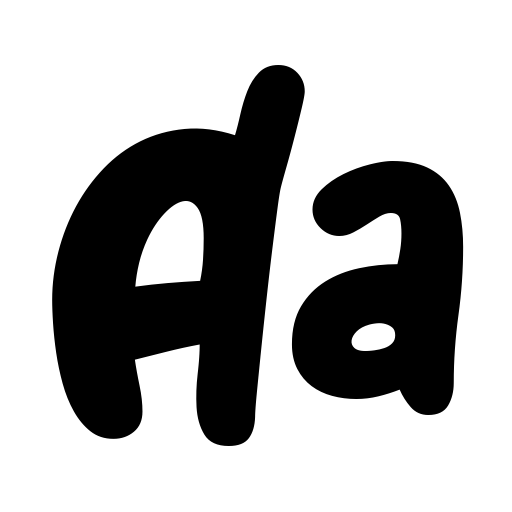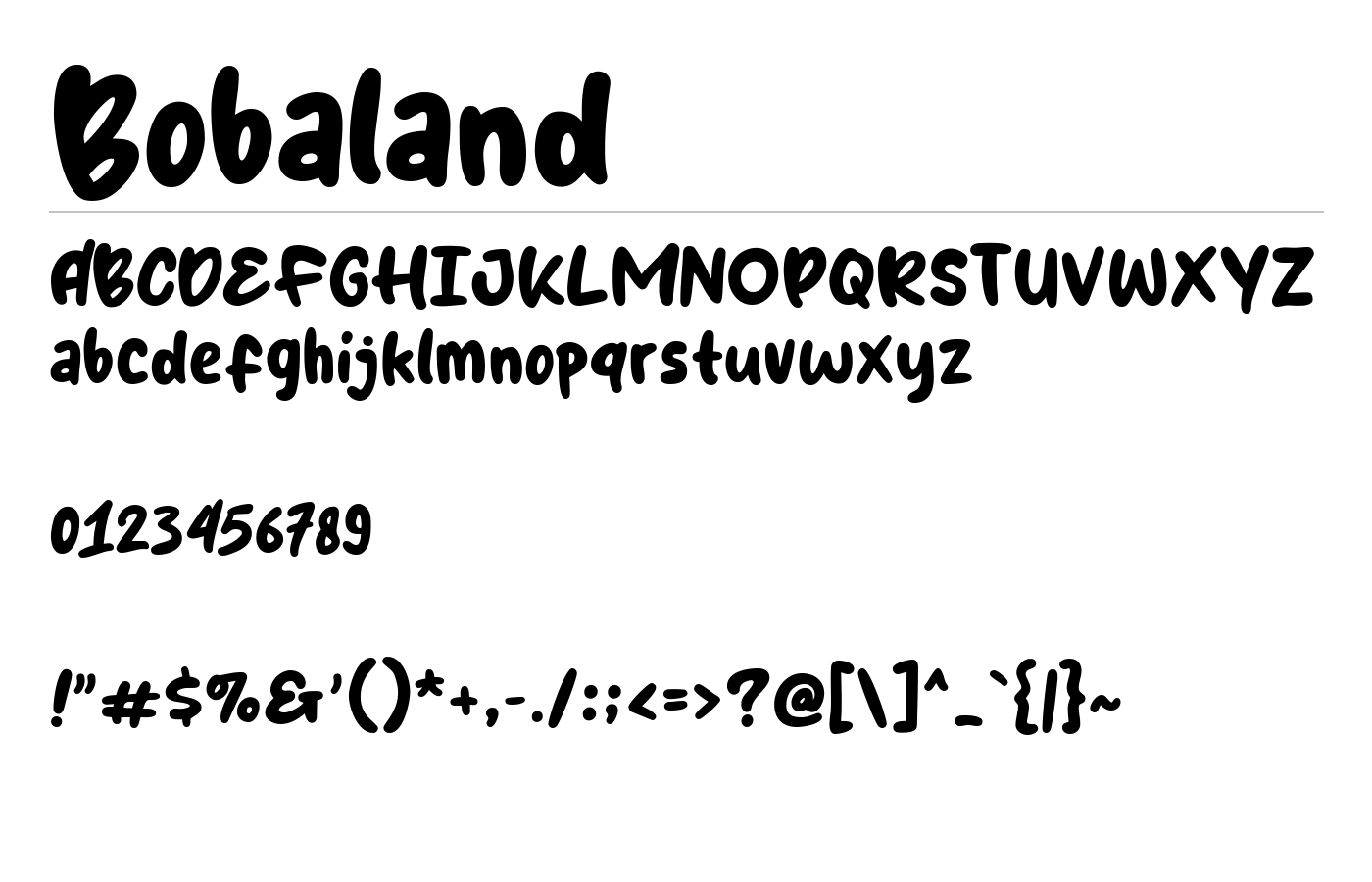
Bobaland is a playful and bold handwritten sans serif font featuring thick, rounded strokes and a casual, friendly feel. Its lively letterforms with slight irregularities make it perfect for children's books, creative branding, and informal headlines where a warm, approachable vibe is desired. This font works best in designs that want to convey fun, creativity, and a personal touch.
Bobaland Font
About Bobaland Font